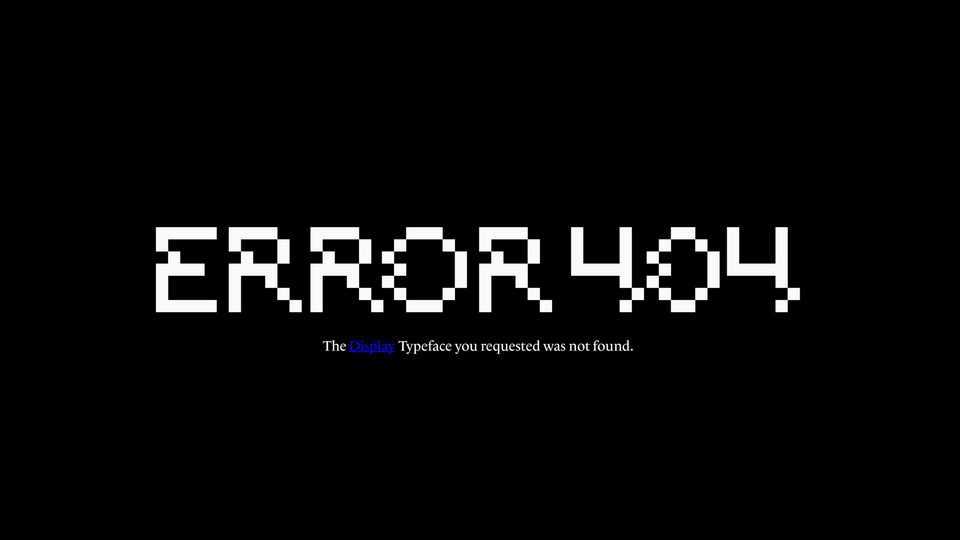
Download Error 404 font, a pixel-style display typeface projected based on a 7×7 grid. Error 404 font is created as if there was an error, a kind of glitch, each character has an offset of one of the pixels.
Designer: Luiza Amorim